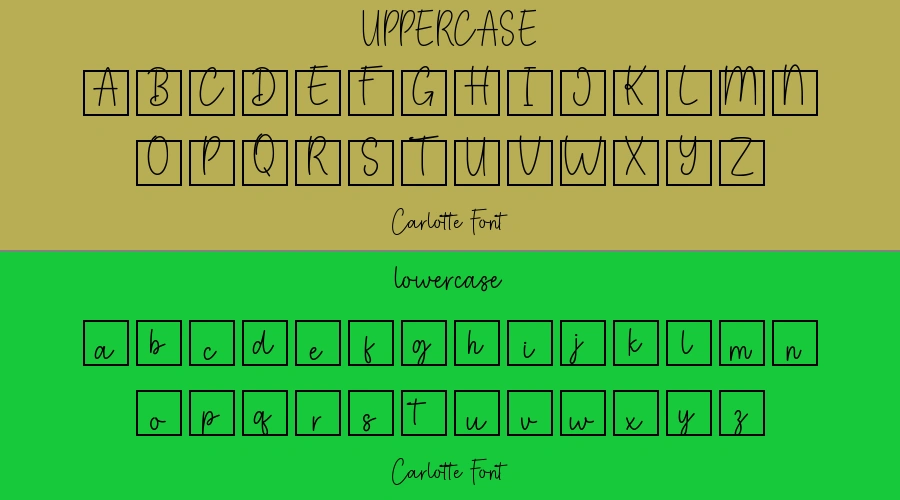
About Carlotte Font
Carlotte Font represents a sophisticated approach to type design, balancing architectural precision with optical adjustments. Perfect for poster titles, this font family showcases impressive consistency and cultural relevance throughout its character set. Designers appreciate its versatility and reliability.
Designers will appreciate nuanced touches including ink traps and word-end alternates, adding sophistication to any project. These features become apparent in traditional announcements, where detail retention matters most. The careful treatment of curve radius and historical references ensures optimal performance.